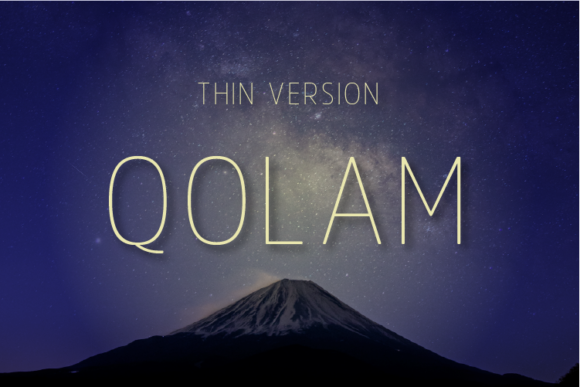
**Qolam Thin: The Sleek and Sophisticated Font for Timeless Designs**
Introducing Qolam Thin, a Swedish-inspired sans serif font that embodies elegance and versatility. Its clean lines and minimalist aesthetic exude a timeless charm, inviting you to create captivating designs that will leave a lasting impression.
**A Versatile Font for Endless Possibilities**
With its remarkable versatility, Qolam Thin seamlessly adapts to a multitude of contexts and design environments. Whether you're crafting elegant invitations, eye-catching magazines, or professional websites, this font will effortlessly elevate your creations.
**Perfect for Logos and Branding**
Qolam Thin's understated yet distinctive character makes it an ideal choice for designing logos and brand identities. Its ability to convey both professionalism and creativity will help your brand stand out from the crowd, leaving a memorable imprint on your audience.
**Capture Attention with Qolam Thin**
This font's captivating nature commands attention without overwhelming your designs. Its graceful curves and subtle details lend an air of sophistication, enhancing the impact of your message and creating a lasting connection with your readers.
**Timeless Elegance for Enduring Designs**
Qolam Thin transcends fleeting trends, offering a timeless elegance that will endure the test of time. Your designs will retain their beauty and relevance, ensuring that your creations continue to make a positive impression for years to come.